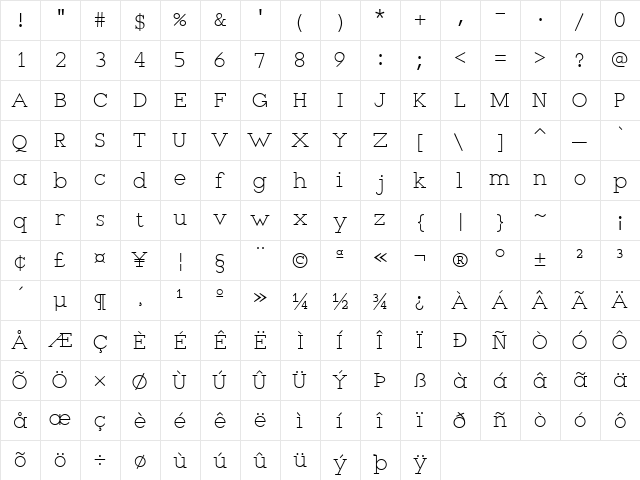
Bennington Regular
Design Context for Bennington Typeface
Bennington offers clean, dependable letterforms without strong stylistic allegiance, making it a practical choice for designers who need flexibility.